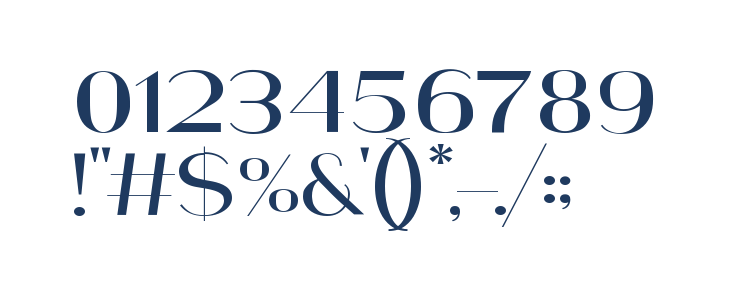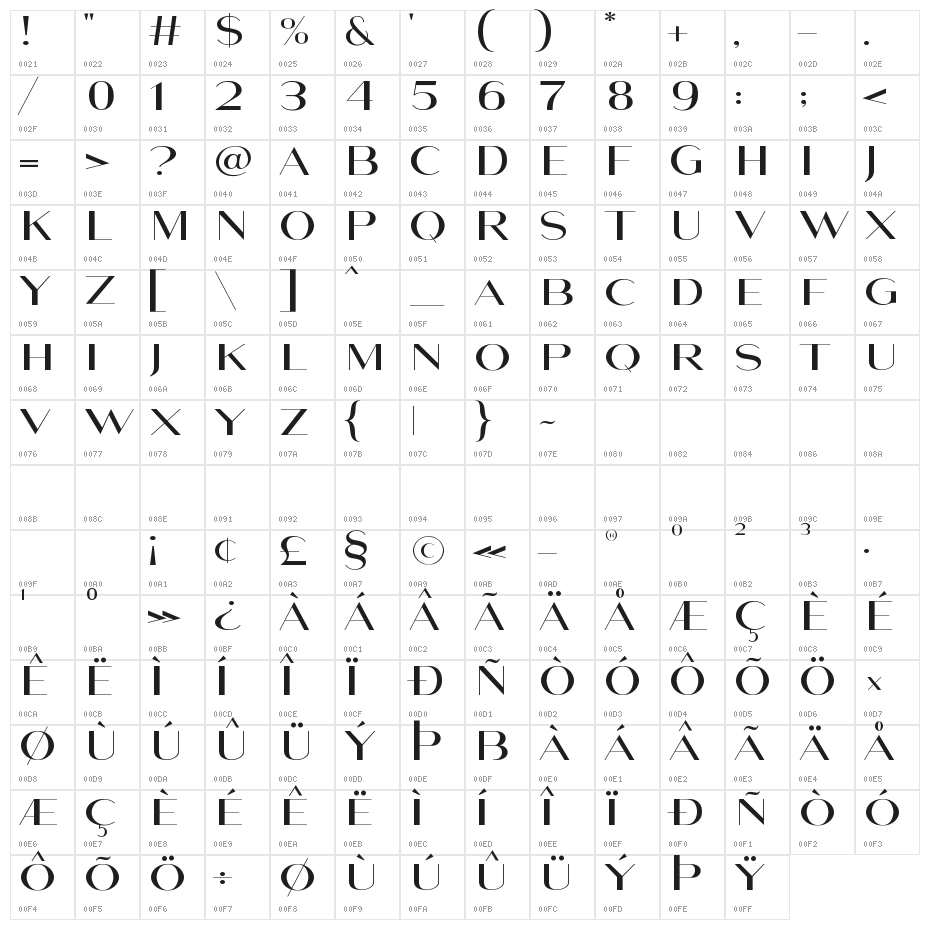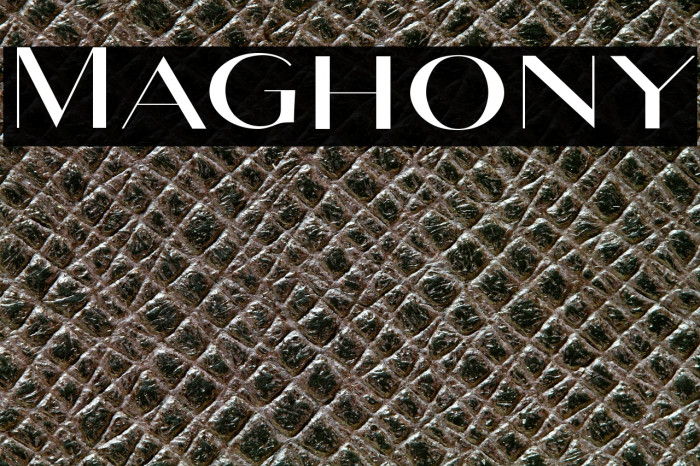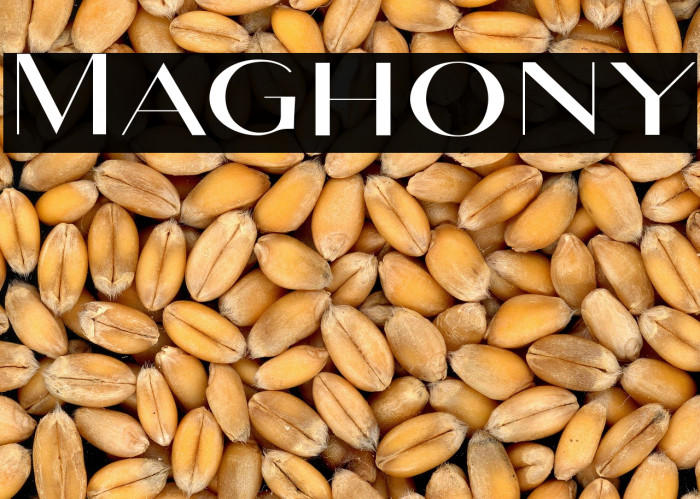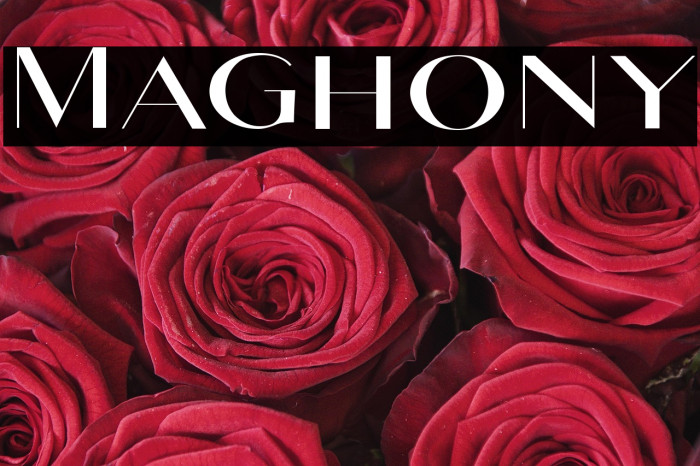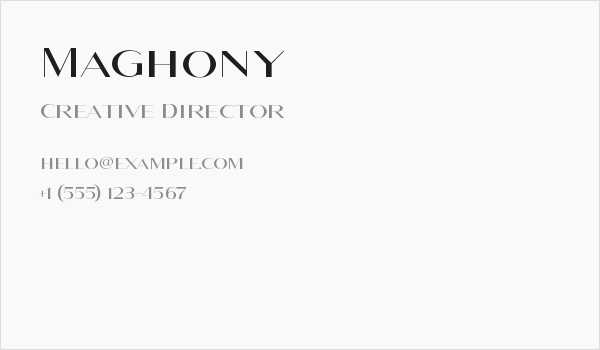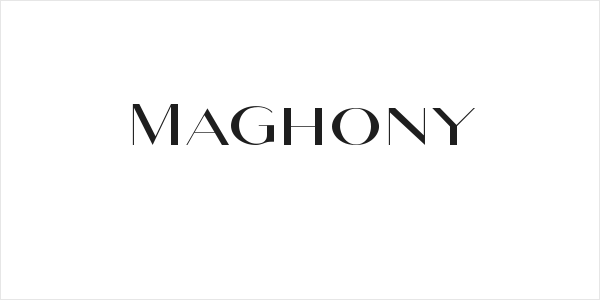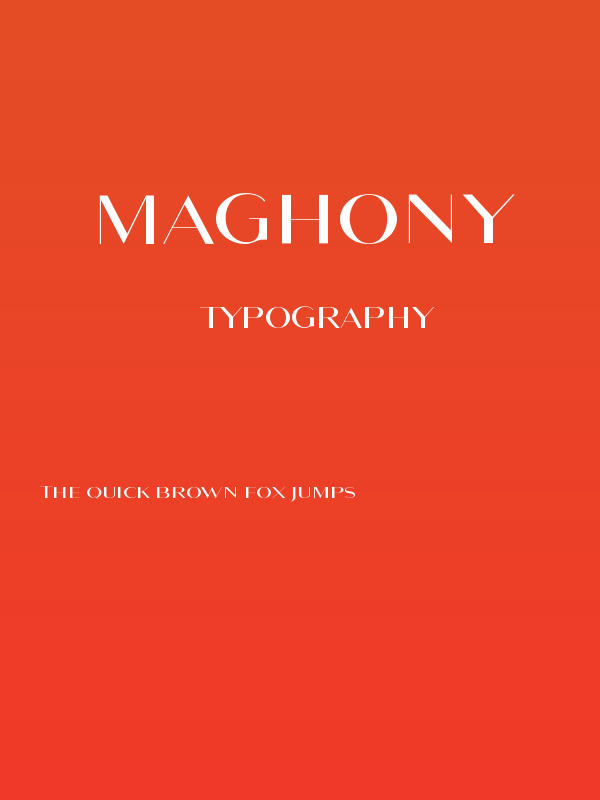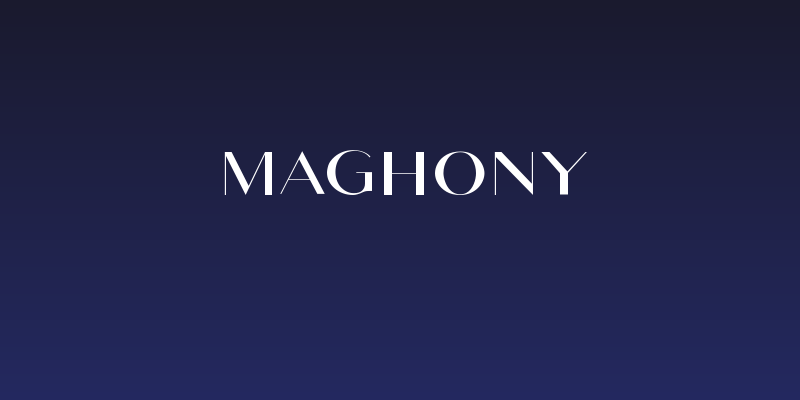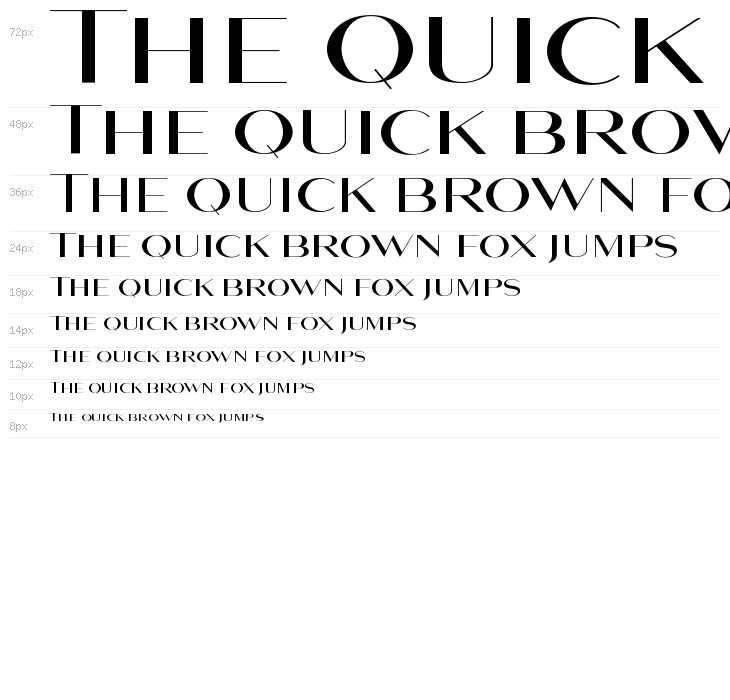
Maghony Font
Maghony Description
This font features a modern and elegant design with high contrast between thick and thin strokes, creating a sophisticated and stylish appearance. The characters are sleek and elongated, with sharp, clean lines that give a sense of refinement. The uppercase letters are particularly striking, with a distinctive flair that adds a touch of drama. The numerals and special characters maintain the same level of elegance, making this font versatile for various applications. Its overall aesthetic is both contemporary and timeless, suitable for projects that require a touch of class and sophistication.
| Proposed Projects | Ideal for luxury branding, fashion magazines, elegant invitations, and high-end product packaging. |